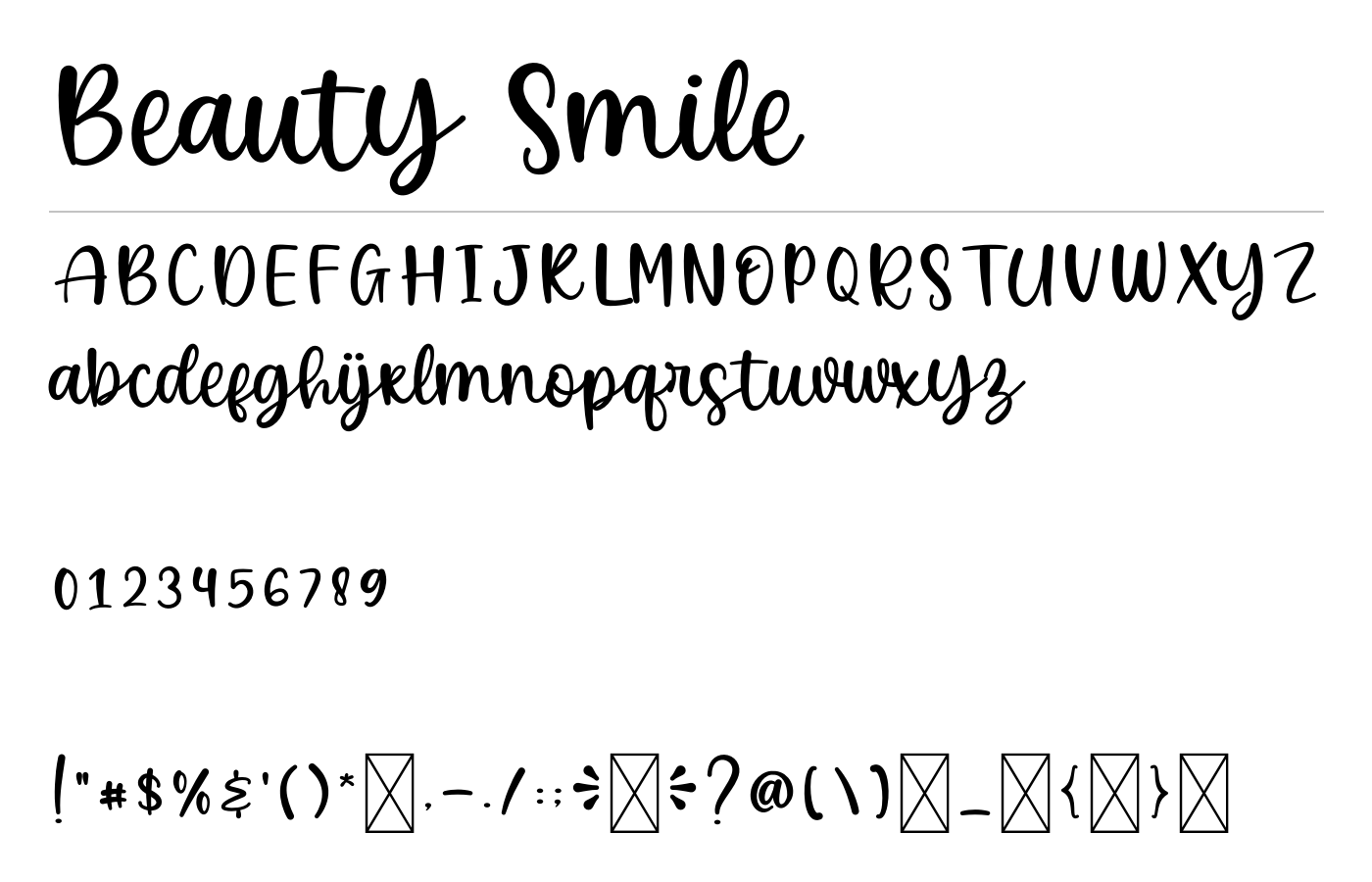
Beauty Smile is a playful and friendly handwritten script font with a lively, casual charm. Its smooth, rounded strokes and moderate contrast give it a warm and approachable feel, making it ideal for creative projects, branding, and packaging that aim to convey warmth and personality. This font works especially well for logos, invitations, and social media designs where a personal, cheerful touch is desired.
Beauty Smile Font
About Beauty Smile Font